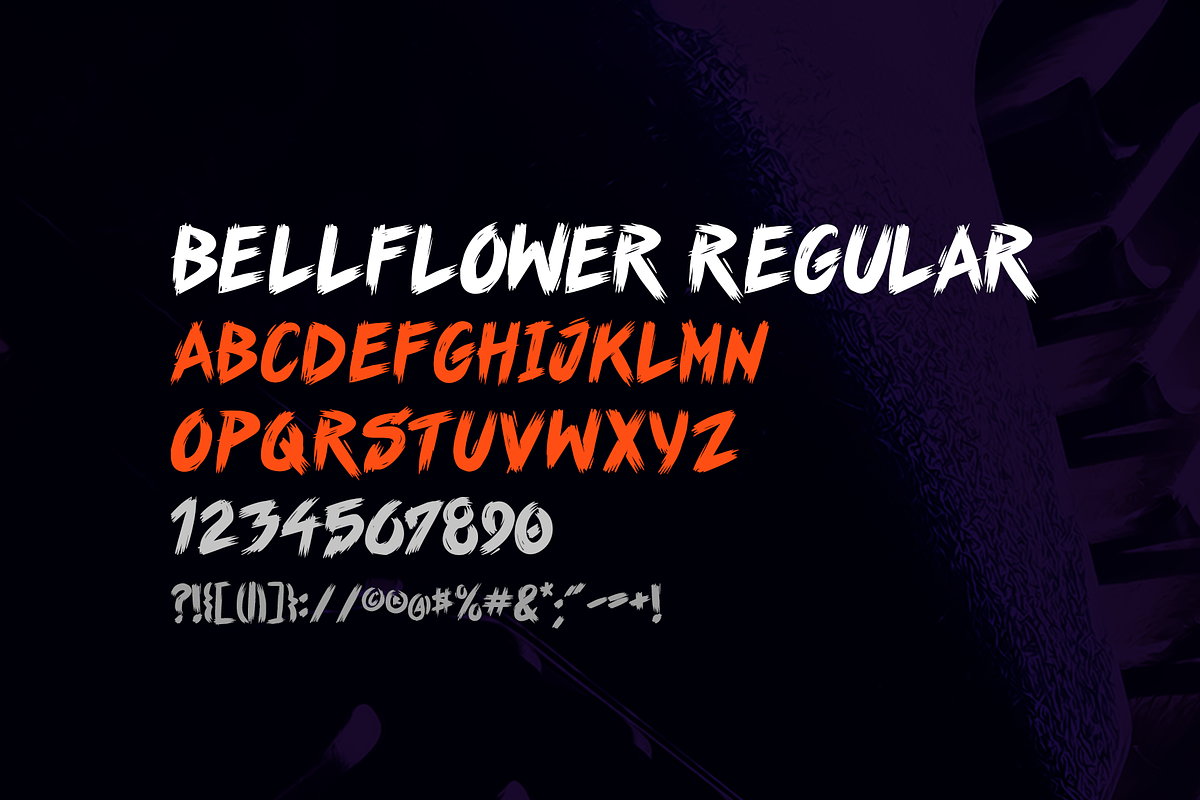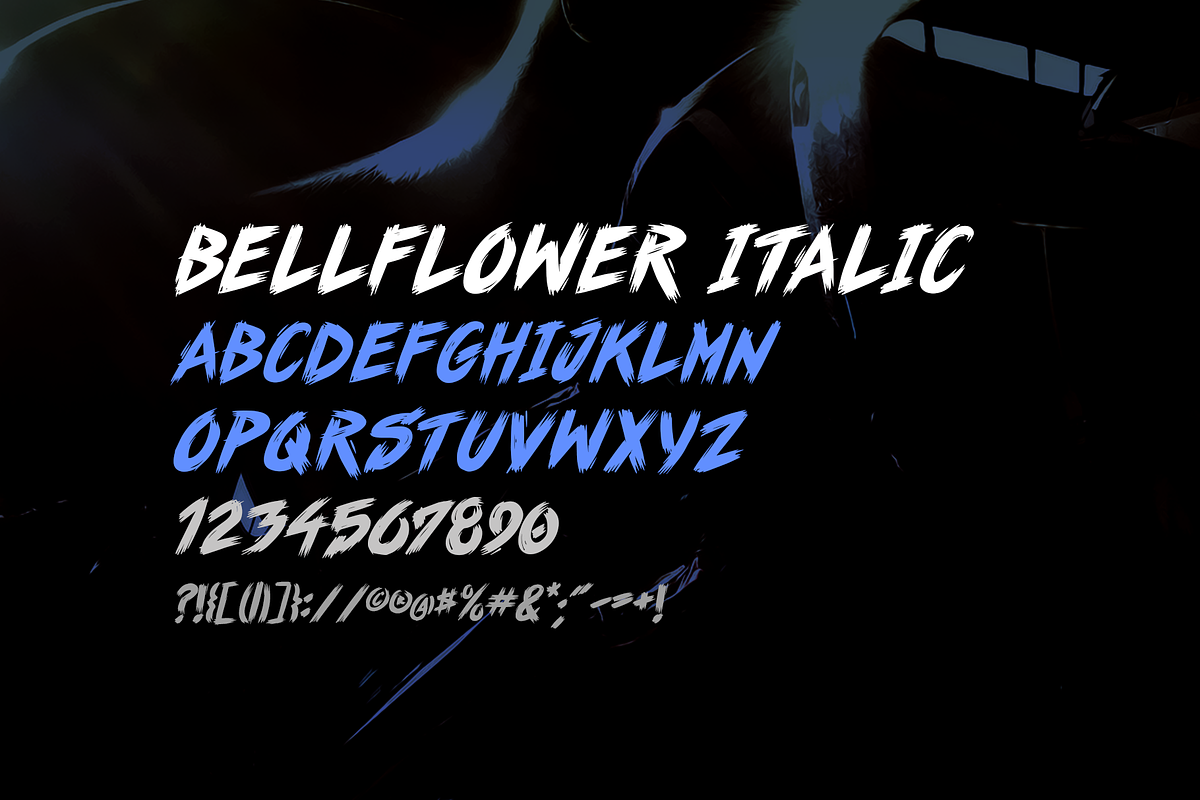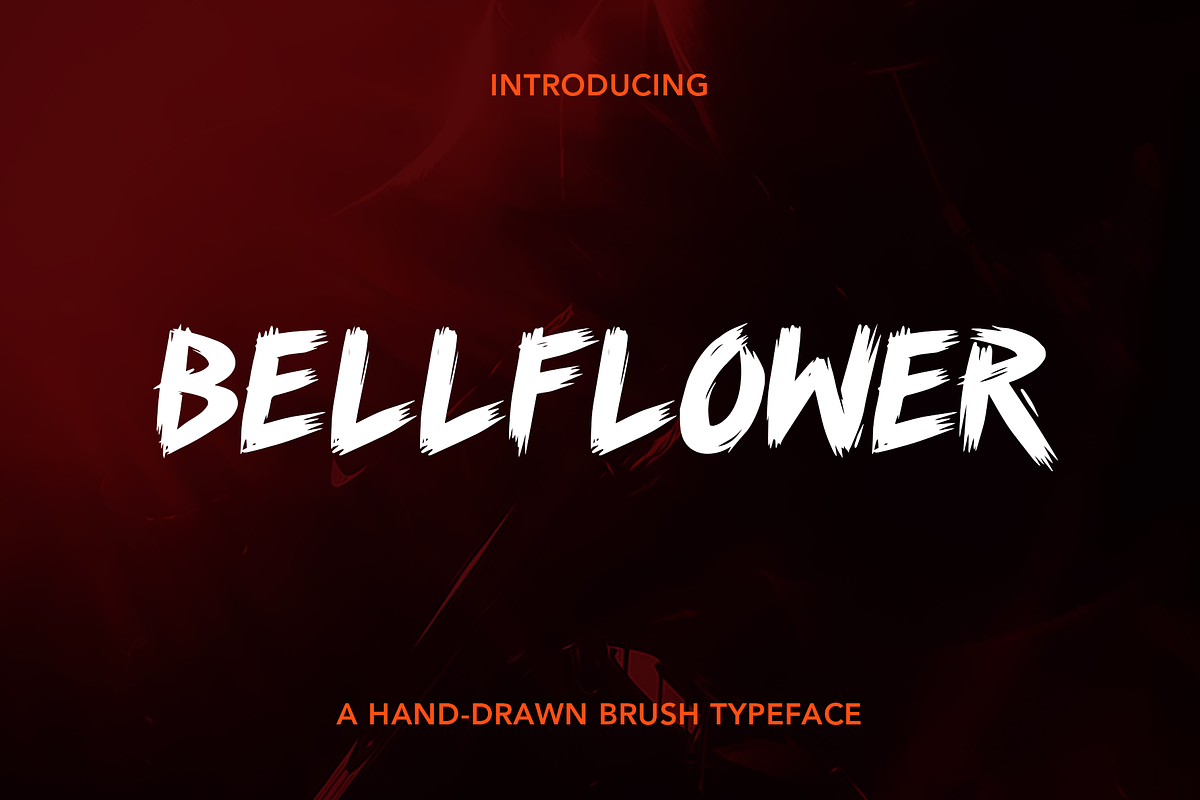
Bellflower Brush Font
A hand-drawn, brush style font. Inspired by 80's skateboard art. Uppercase set with regular and italic variations. International glyphs and punctuation included.
- Uppercase set with regular and italic variations.
- Bellflower Regular
- Bellflower Italic